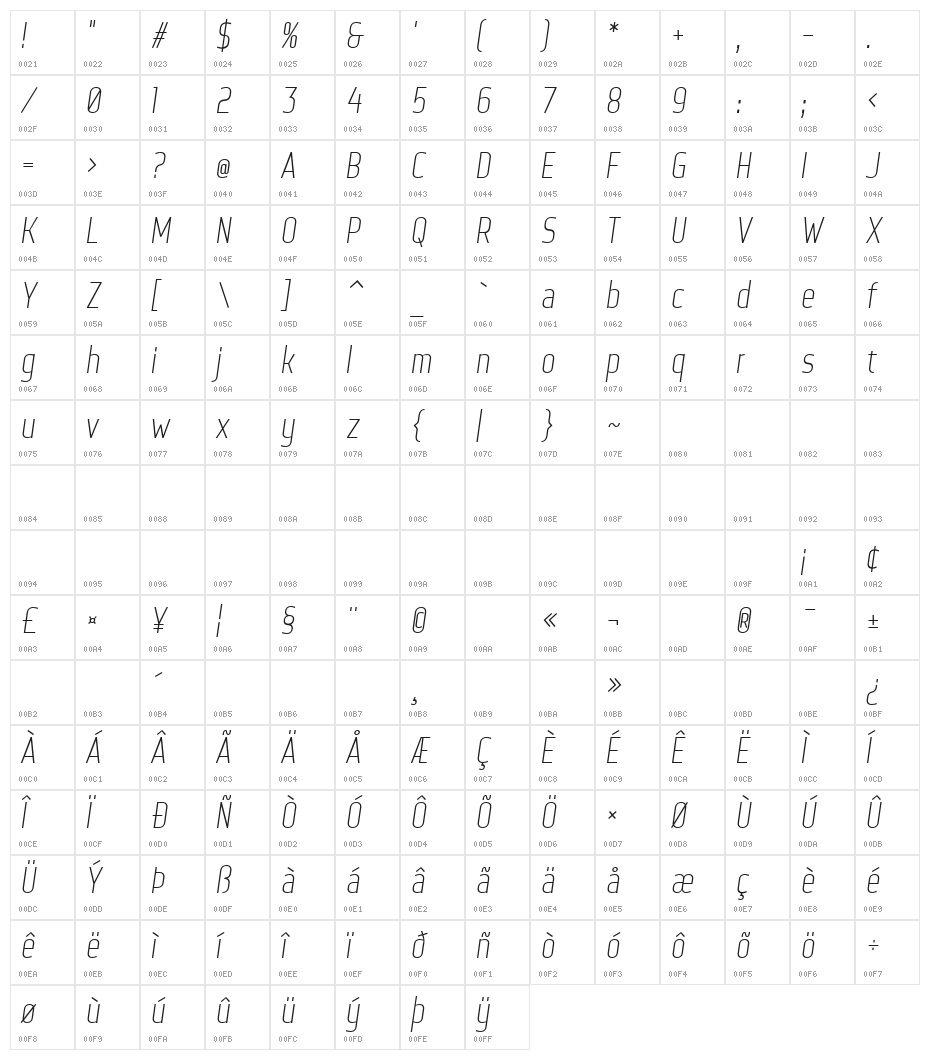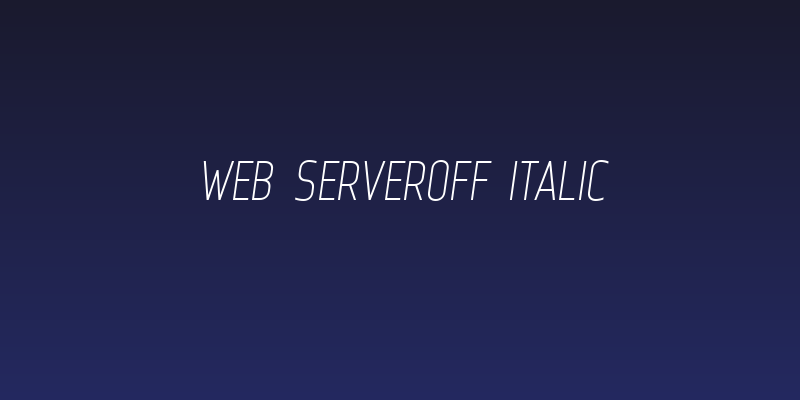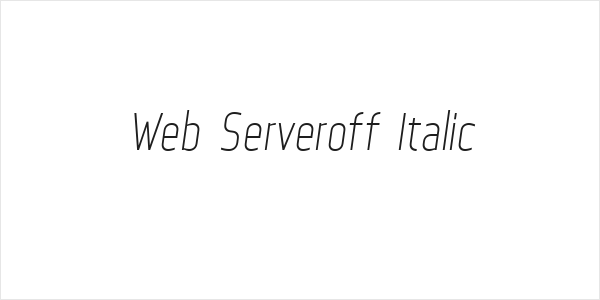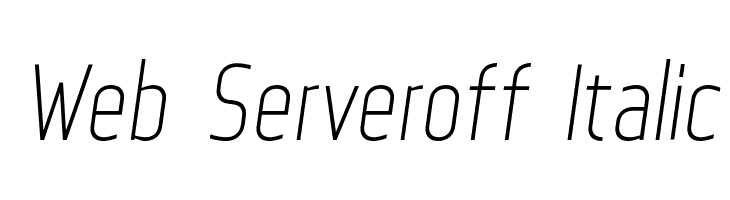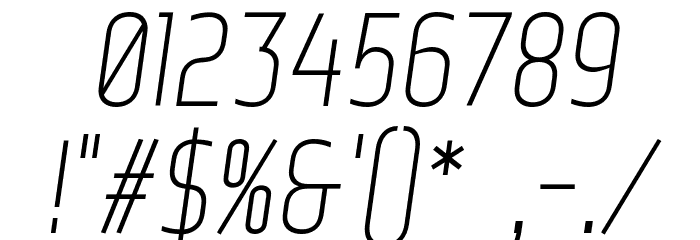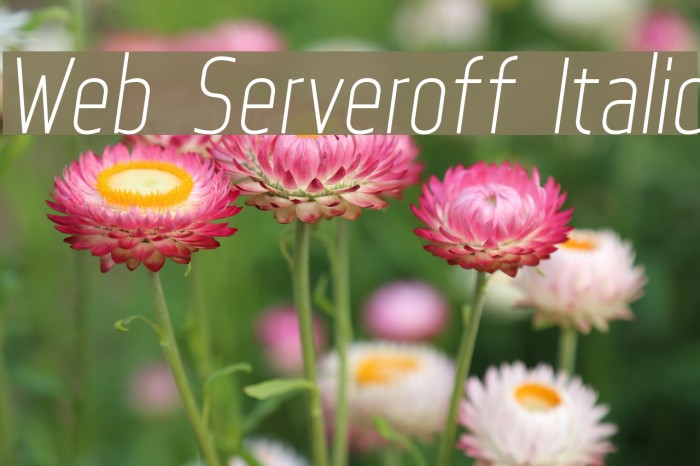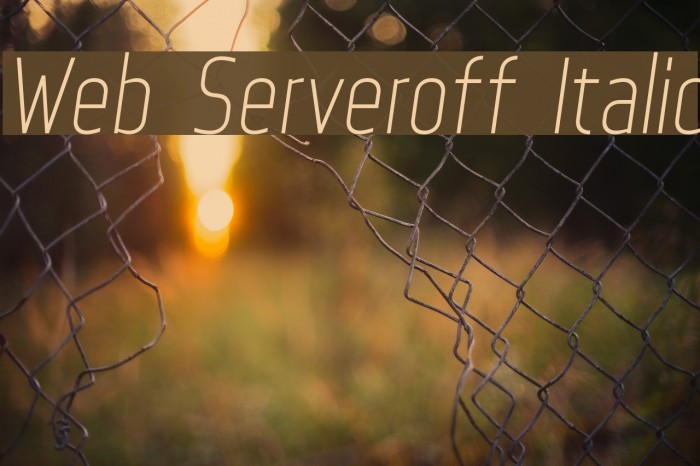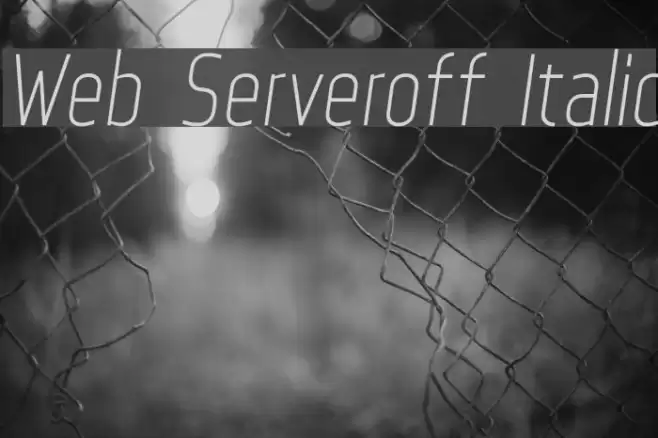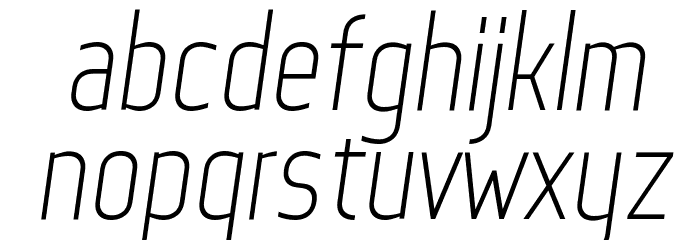
Web Serveroff Italic Font
Web Serveroff Italic Description
This font features a sleek and modern design with a distinct italic slant, giving it a dynamic and forward-moving appearance. The characters are elongated and slightly condensed, contributing to a streamlined look. The strokes are consistent in thickness, providing a uniform and clean aesthetic. The uppercase letters are tall and commanding, while the lowercase letters maintain a balanced proportion, ensuring readability. The numerals are clear and well-defined, matching the overall style of the alphabet. Special characters are crafted with precision, maintaining the font's cohesive design. This font is suitable for projects that require a contemporary and professional touch.
| Width | Condensed |
| Use Case | Headlines, Logos, Digital interfaces |
| Proposed Projects | Ideal for branding, editorial design, advertising, and digital interfaces where a modern and professional look is desired. |